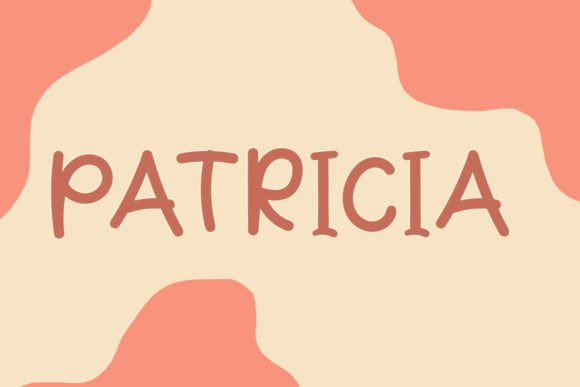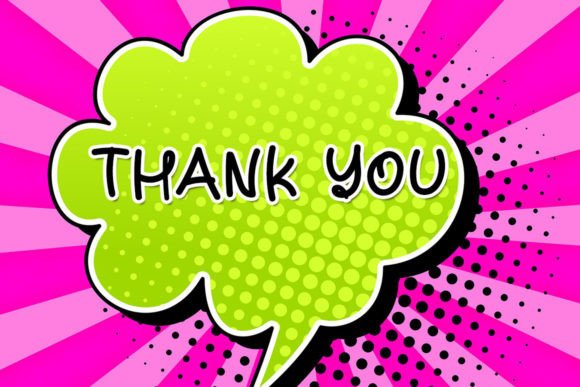
Hanzel Font: Elevate Your Designs with a Touch of Elegance and Joy
In the world of design, fonts play a crucial role in conveying the message and aesthetic of a project. Whether you’re working on a formal business proposal or an informal social media post, the right font can make all the difference. This is where Hanzel Font comes into play – a beautiful and sweet display font that is fresh, clean, and elegant. In this article, we’ll explore the features and benefits of Hanzel Font and how it can add an incredibly joyful touch to your designs.
The Characteristics of Hanzel Font
Hanzel Font is a display font that stands out for its unique blend of elegance and playfulness. Its clean lines and simple structure make it a versatile choice for a wide range of projects. Here are some key characteristics that make Hanzel Font special:
- Fresh and Clean: Hanzel Font boasts a modern and clean look that works well in both digital and print media. Its simplicity ensures that your message is conveyed clearly without any distractions.
- Elegant and Sophisticated: Despite its simplicity, Hanzel Font carries an air of elegance that is perfect for formal projects such as business cards, brochures, and official documents.
- Joyful and Playful: The sweetness of Hanzel Font adds a playful touch to your designs, making it ideal for informal projects like social media graphics, party invitations, and children’s books.
Versatility of Hanzel Font
One of the significant advantages of Hanzel Font is its versatility. It can be used in a great number of projects, both formal and informal. Here are some ideas on how you can use Hanzel Font:
- Business Branding: Use Hanzel Font for your business logo, letterheads, and business cards to give your brand a professional yet friendly look.
- Social Media Graphics: Create engaging social media posts, banners, and stories with Hanzel Font to attract and retain your audience’s attention.
- Invitations and Cards: Whether it’s a wedding invitation, birthday card, or baby shower announcement, Hanzel Font adds a touch of elegance and joy to your designs.
- Packaging and Product Labels: Stand out on store shelves with product labels and packaging designs that use Hanzel Font for a clean and attractive look.
How Hanzel Font Simplifies Your Design Process
Fonts are designed to simplify your design process, and Hanzel Font is no exception. By incorporating Hanzel Font into your projects, you can:
- Save Time: With its ready-to-use design, Hanzel Font saves you the time and effort of creating a custom font from scratch.
- Enhance Consistency: Use Hanzel Font across all your design materials to maintain a consistent brand image and aesthetic.
- Improve Readability: The clarity of Hanzel Font ensures that your message is easily readable, making it perfect for both headings and body text.
Make Your Business Look More Beautiful with Hanzel Font
By using Hanzel Font, your business can benefit in several ways:
- Professional Image: Hanzel Font helps project a professional and sophisticated image of your business, which is crucial for attracting and retaining clients.
- Brand Differentiation: Stand out from your competitors with a unique and beautiful font that reflects your brand’s personality.
- Customer Engagement: The joyful and playful touch of Hanzel Font can make your marketing materials more engaging and appealing to your target audience.
In conclusion, Hanzel Font is a versatile and beautiful display font that can elevate your designs with its elegance and joy. Whether you’re a designer, crafter, or business owner, Hanzel Font is an excellent choice for a wide range of projects. Its simplicity, elegance, and playfulness make it a valuable addition to your font collection. So, why wait? Download Hanzel Font today and make your designs more beautiful and engaging!